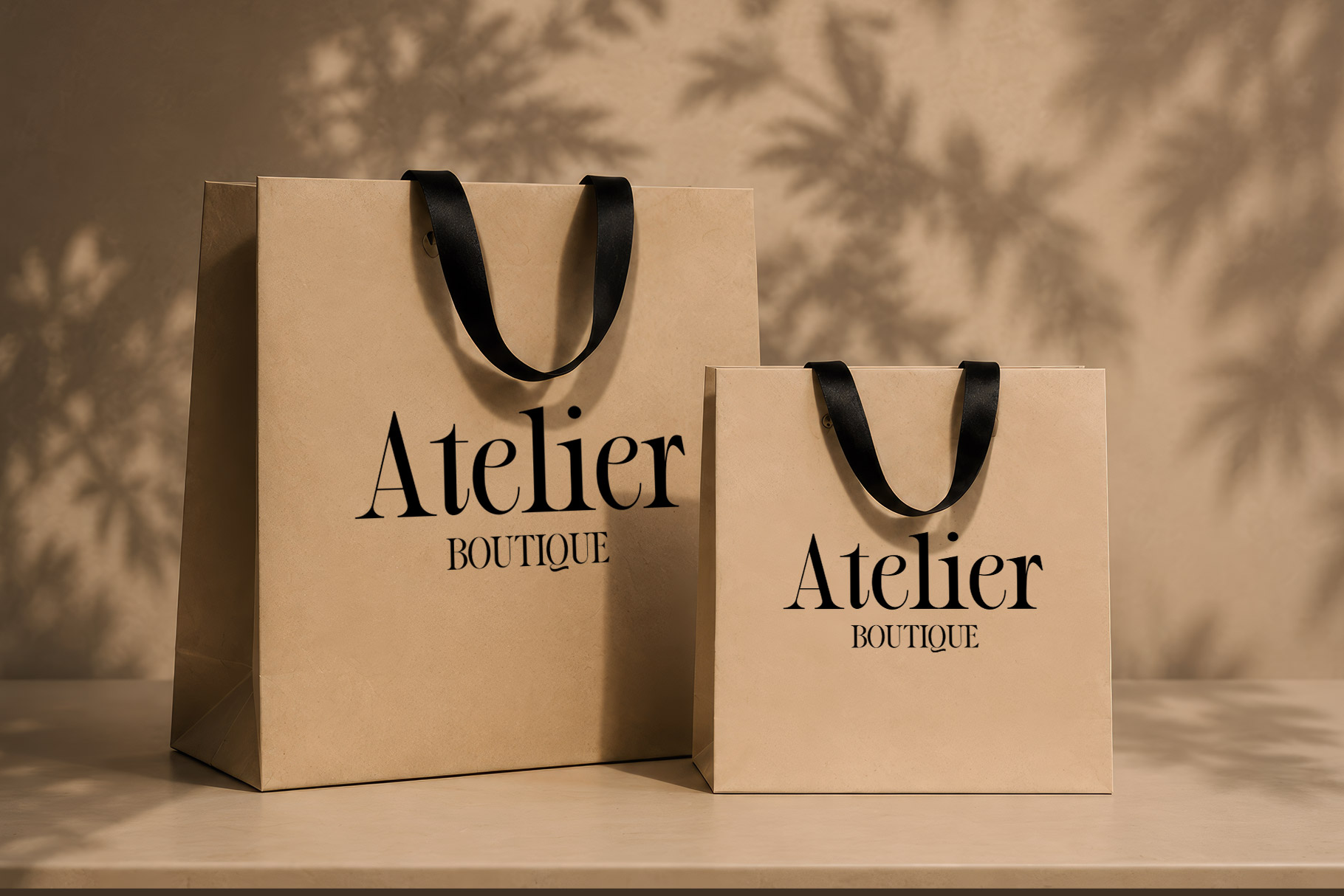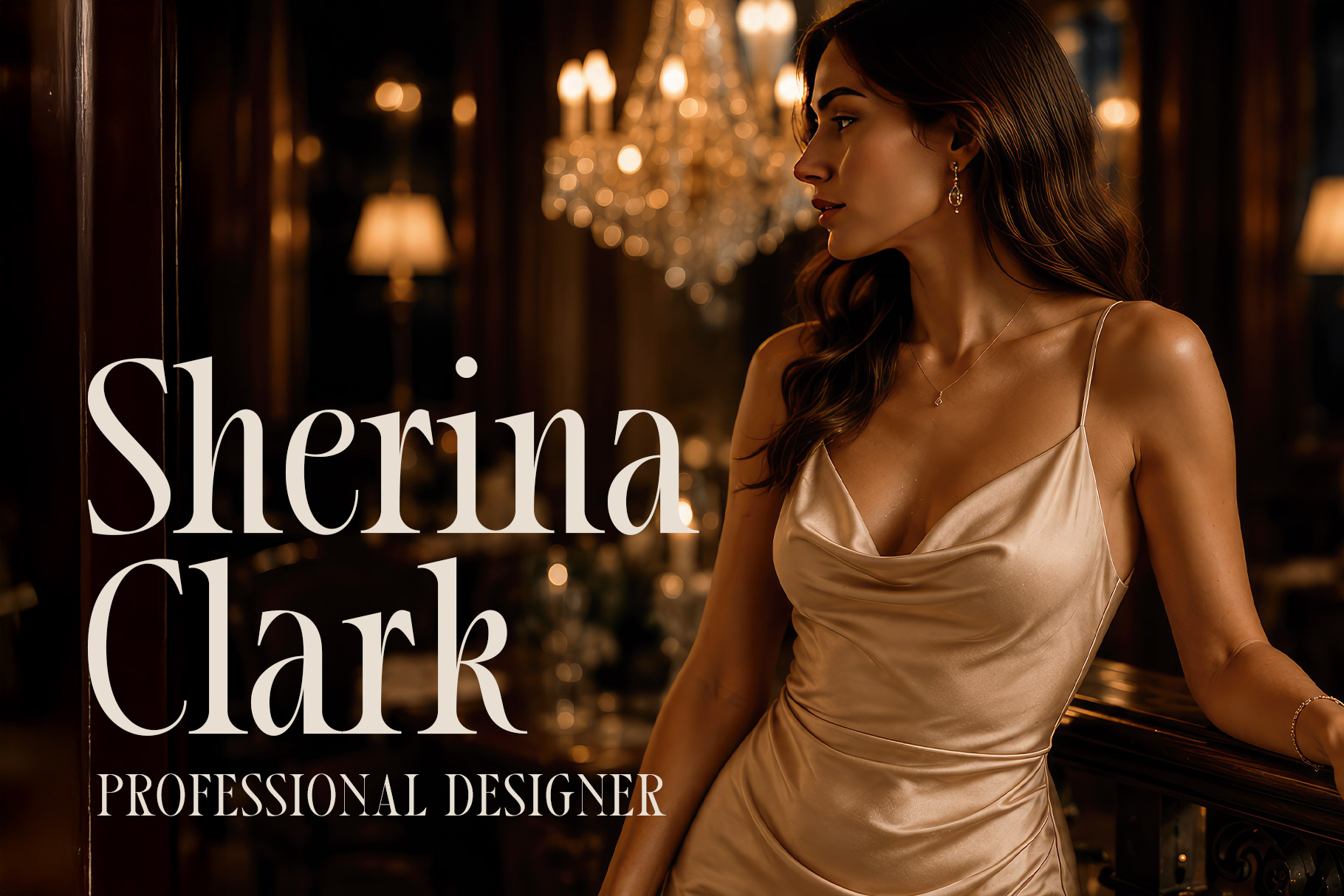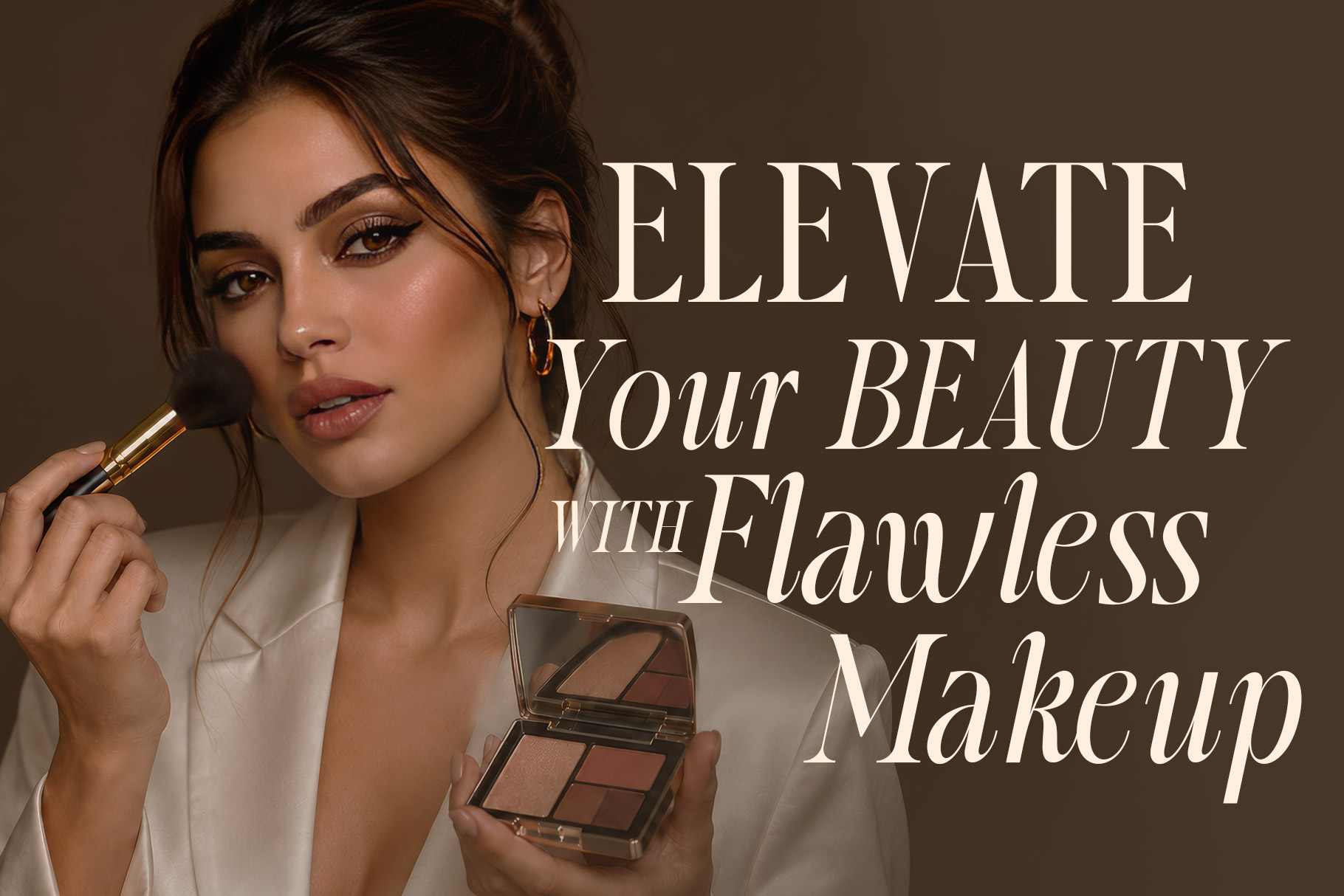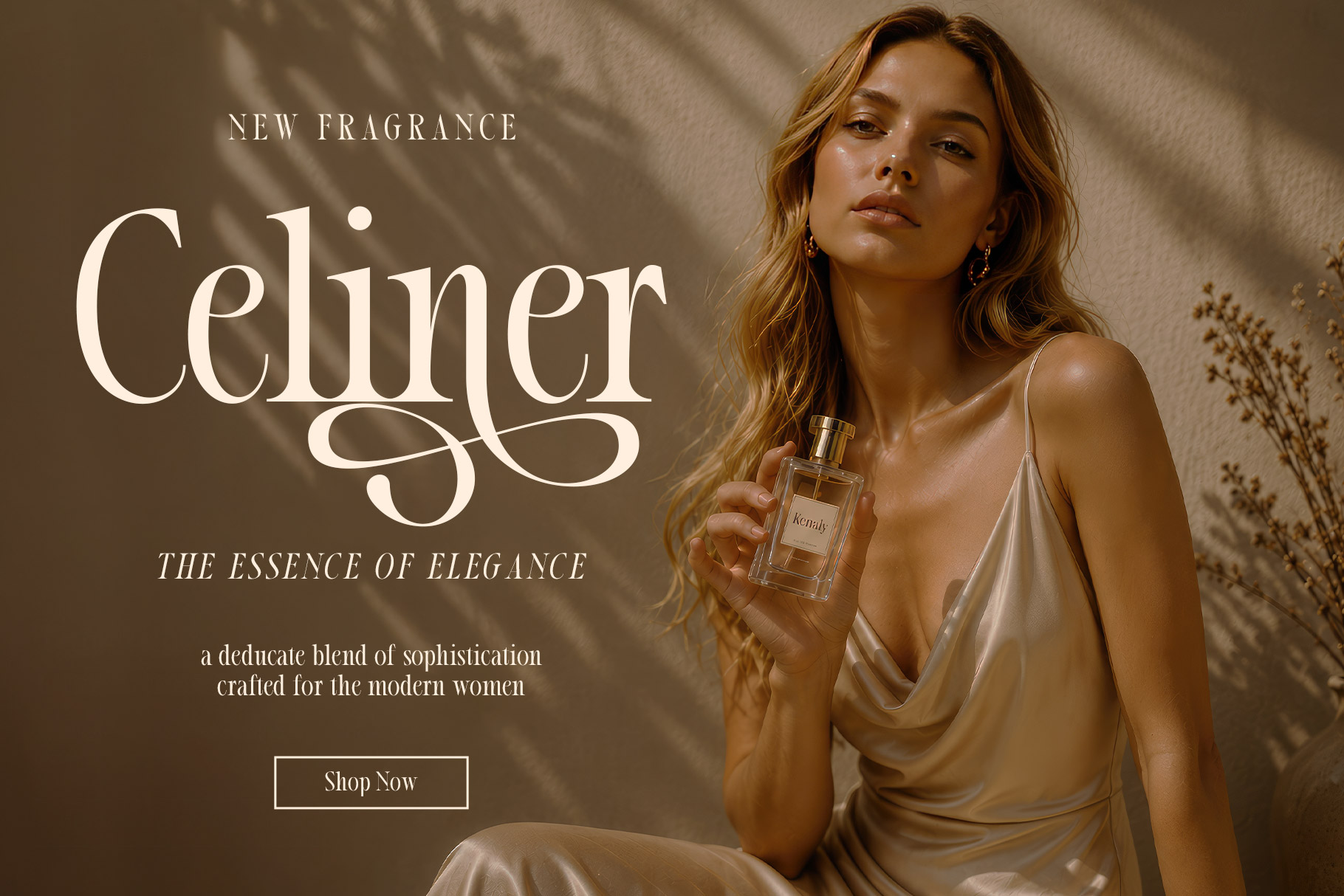
Kenaly is elegant serif font refined high-contrast serif typeface that blends timeless sophistication with modern femininity. The letterforms are characterized by dramatic thick-to-thin transitions, creating a graceful rhythm that instantly evokes luxury, elegance, and exclusivity. Inspired by the visual language of premium fashion houses and editorial publications, the typography communicates a sense of quiet confidence and elevated beauty.
Kenaly a perfectly choice for any creative endeavor, creating, modern, lifestyle design such as logotype, title, cover, branding, invitations, wedding designs, display and magazine, social media posts, advertisements, printed quotes, product packaging, corporate brand, product designs, labels, photography, watermarks, special events and any other project with elegant touch.
Kenaly Elegant Serif Font